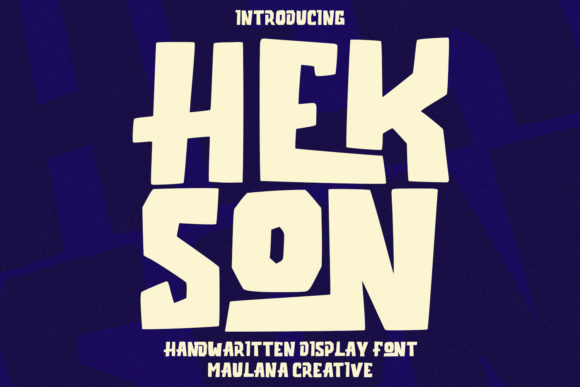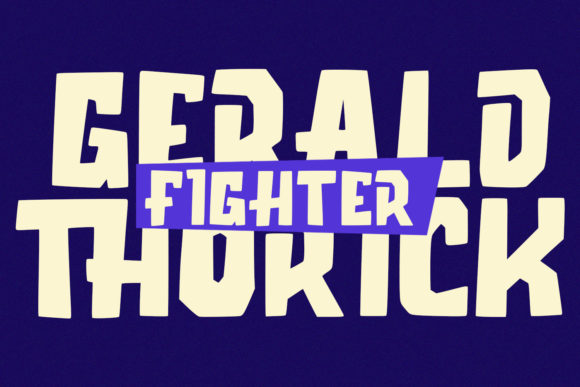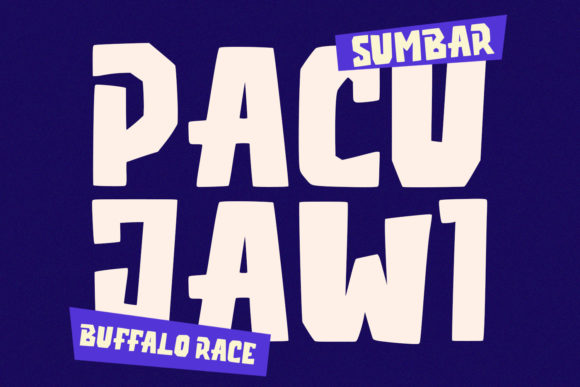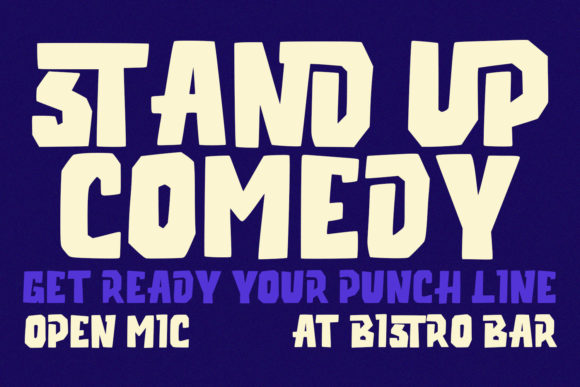
Hekson Font: A Bold Display Font for Playful & Unique Designs!
About the Hekson Font
The Hekson Font is here to transform your projects with its distinctive character and style. Hekson is a block handwritten display font, with a bold stroke, fun character with a bit of ligature. Is a playful and stylish font with a youthful spirit. Is suitable for both professional-looking projects such as branding designs, labels, websites, and business cards as well as casual designs like packaging, posters, flyers, quotes, social media posts, invitations, special occasions cards, etc
Hekson’s bold, playful nature makes it ideal for headlines, short impactful statements, and branding projects needing a youthful, energetic feel. It excels in packaging design, posters, and social media graphics where its hand-drawn charm shines. However, its weight and informality make it unsuitable for body text or UI elements requiring high readability. Avoid using it for long paragraphs or applications demanding clarity and subtlety.
Pairing Hekson effectively requires considering its strong personality. A clean sans-serif like Open Sans or Lato provides a solid counterpoint, grounding its playful energy. For a more sophisticated look, consider pairing it with a classic serif like Garamond or Playfair Display; these create visual interest and contrast. Avoid pairing it with other similarly bold or heavily decorated fonts, as this could create visual clutter.
Hekson’s overall personality is best described as bold and friendly, with a touch of youthful irreverence. It projects confidence and approachability, making it perfect for brands targeting a younger demographic or those seeking a vibrant, memorable visual identity.